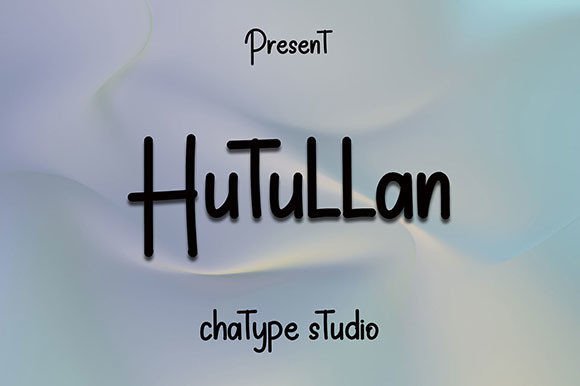
About Hutullan Font
Hutullan is a simple and cute handwritten font. This font will be suitable for various projects such as quotes, logos, blog headers, posters, ribbons, fashion, clothing, letters, invitations, stationery, etc.